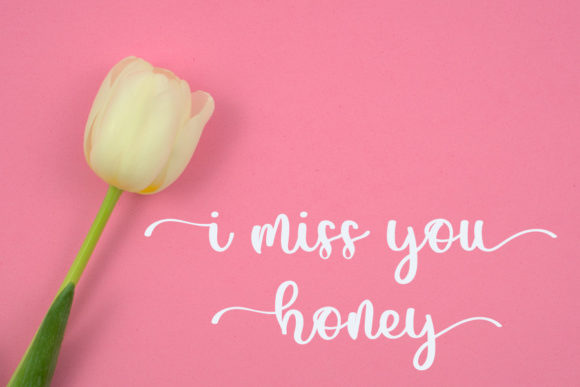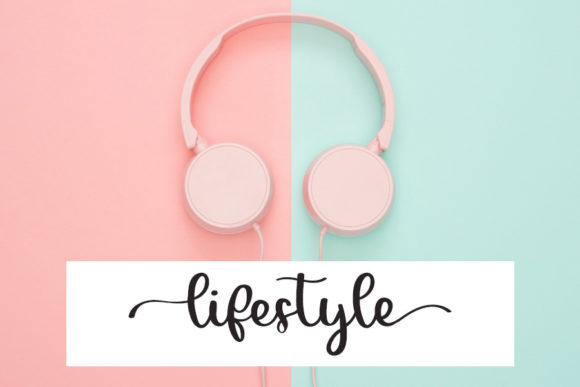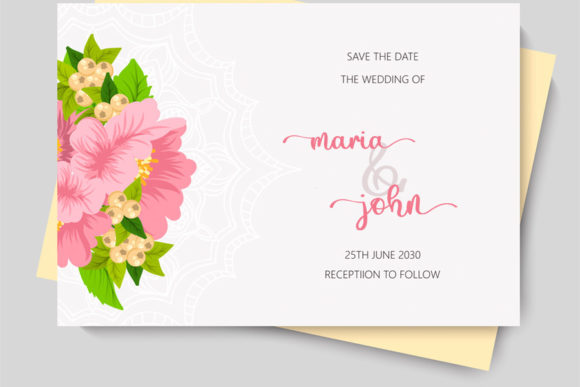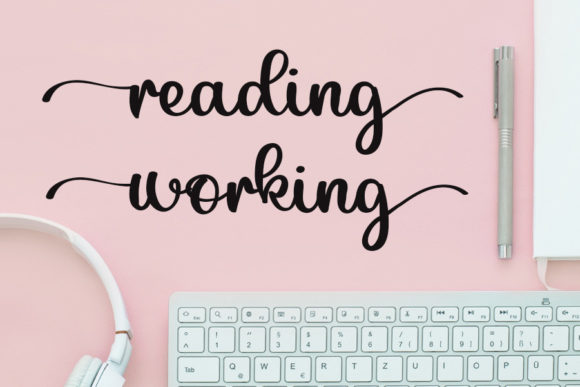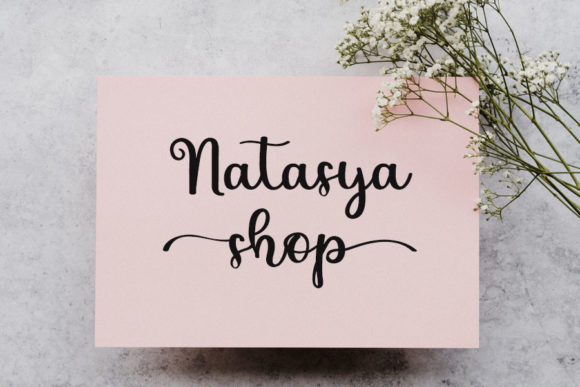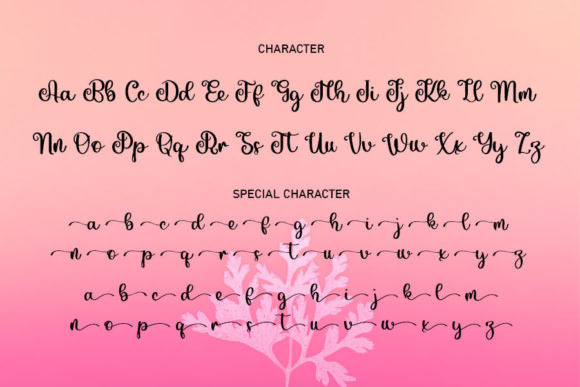
Have you ever stared at a blank canvas, waiting for inspiration to strike? You know, that moment when everything comes together and your creative juices start flowing? For many designers, it’s that magical spark that sets off a chain reaction of ideas and possibilities. And for those moments, you need the right tools to bring your vision to life.
That’s where the Ballerina Font comes in – a well-balanced, cheery, and delicate script font that’s perfect for adding a touch of elegance to your designs. Whether you’re creating social media graphics, DIY projects, or calligraphy scripts, Ballerina Font is the perfect companion for your next creative adventure. With its PUA encoding, accessing all the glyphs and swashes is a breeze, making it a valuable asset for designers looking to add a personal touch to their work.
Ballerina Font Key Features
- Unique Characteristics: The Ballerina Font features a distinctive, elegant script style with flowing connections between letters, giving it a beautiful and sophisticated appearance.
Ballerina Font Review
Overall, I think the Ballerina font is a sweet addition to any design project. ✨ It’s playful, whimsical, and perfect for those who want to add a touch of femininity to their typography. The font’s curvy lines and flowing style make it ideal for titles, headings, and even body text in certain contexts.
Here are some things that I think work well with the Ballerina font:
- ✨ Its versatility: The font can be used in both digital and print designs, making it a great option for multi-platform projects.
- ✨ Its legibility: Despite its ornate design, the font is surprisingly easy to read, even at smaller font sizes.
- ✨ Its customization options: The font comes in a range of weights and styles, allowing designers to customize it to fit their specific needs.
- ⚠️ It may be too ornate for certain designs: The Ballerina font’s flowing lines and curvy shapes may be overwhelming for simpler designs or those that require a more minimalist aesthetic.
- ⚠️ It may not be suitable for body text: While the font is legible, it may be too decorative for large blocks of text, potentially making it difficult to read.
In conclusion, the Ballerina font is a great option for designers who want to add a touch of elegance and whimsy to their projects. Just be sure to use it judiciously and consider its limitations when making your design decisions.
Tips for Getting the Most Out of the Ballerina Font
Use the Ballerina font to create elegant and sophisticated designs.
Pair the font with pastel colors and floral patterns for a whimsical touch.
Use the font in titles and headings to add a touch of luxury and sophistication.
Branding and marketing materials
Wedding and event decor
Alternatives to Ballerina Font for Designers
Copperplate
Copperplate is a classic script font that mimics the style of copperplate writing. It’s ideal for formal invitations, wedding stationery, and other elegant designs. Copperplate has a more formal and traditional feel compared to Ballerina Font, which is more playful and whimsical.